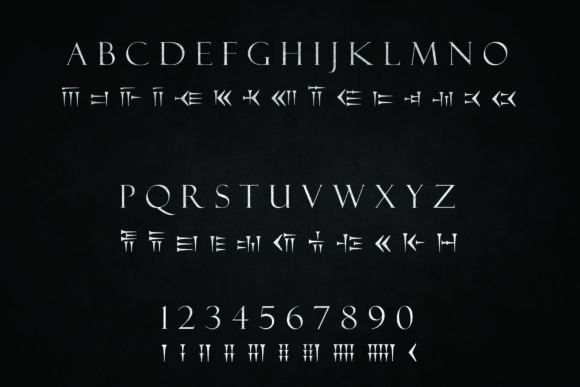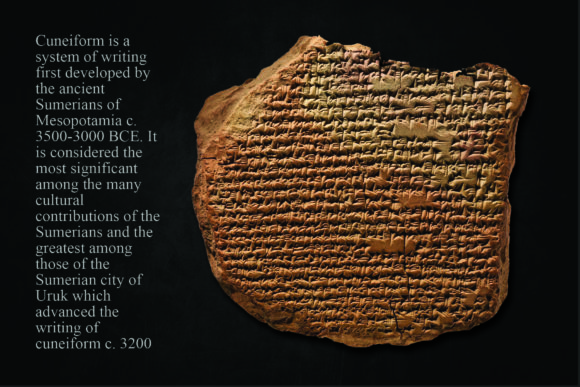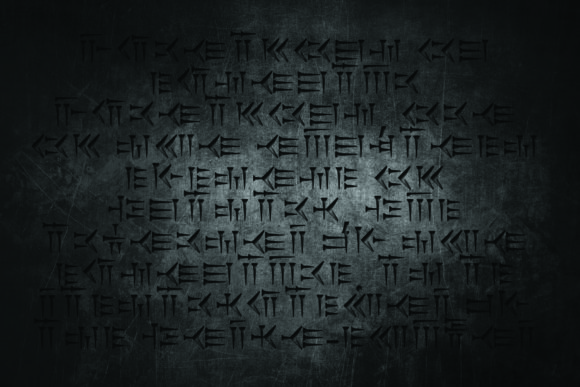
Cuneiform Font: A Timeless Classic with a Bold Twist
Cuneiform is a distinctive and versatile display font that has been making waves in the design world. With its bold twist, this classic font is perfect for adding a touch of sophistication and elegance to any design project. In this article, we’ll explore the world of Cuneiform Font, its history, features, and uses, and why it’s a must-have for designers and crafters.
A Brief History of Cuneiform
Cuneiform is one of the oldest forms of written language, dating back to around 3500 BC. It was used by the ancient Sumerians, Akkadians, and Babylonians in Mesopotamia (modern-day Iraq). The word “cuneiform” comes from the Latin words “cuneus,” meaning “wedge-shaped,” and “forma,” meaning “shape.” This refers to the distinctive wedge-shaped characters that make up the cuneiform script.
The Cuneiform Font
The Cuneiform Font is a modern interpretation of the ancient script. It’s a display font that boasts a bold and striking appearance, making it perfect for headlines, titles, and other design elements. The font features a unique blend of classic and modern elements, with clean lines, sharp edges, and a distinctive wedge-shaped character.
Key Features of Cuneiform Font
- Bold and striking appearance: The Cuneiform Font is designed to make a statement. Its bold and striking appearance makes it perfect for headlines, titles, and other design elements.
- Classic feel: The font has a timeless, classic feel that evokes the ancient civilizations of Mesopotamia.
- Versatile: The Cuneiform Font is versatile and can be used in a variety of design projects, from logos and branding to posters and packaging.
- Easy to read: Despite its bold appearance, the Cuneiform Font is easy to read, making it perfect for use in body text as well as headlines.
Uses of Cuneiform Font
The Cuneiform Font is perfect for a wide range of design projects, including:
- Logos and branding: The font’s bold and striking appearance makes it perfect for logos and branding.
- Posters and flyers: The Cuneiform Font is ideal for use in posters and flyers, where its bold appearance can help grab attention.
- Packaging: The font’s classic feel makes it perfect for use in packaging, particularly for luxury or premium products.
- Web design: The Cuneiform Font can be used in web design to add a touch of elegance and sophistication to a website.
Tips for Using Cuneiform Font
Here are a few tips for using the Cuneiform Font in your design projects:
- Use it sparingly: The Cuneiform Font is a bold and striking font, so it’s best to use it sparingly to avoid overwhelming the design.
- Pair it with a simple font: Pair the Cuneiform Font with a simple font, such as a sans-serif font, to create a striking contrast.
- Experiment with colors: The Cuneiform Font looks great in a variety of colors, so don’t be afraid to experiment and find the perfect color scheme for your design.
The Cuneiform Font is a timeless classic with a bold twist. Its unique blend of classic and modern elements makes it perfect for adding a touch of sophistication and elegance to any design project. Whether you’re a designer, crafter, or simply someone who appreciates great design, the Cuneiform Font is definitely worth checking out.